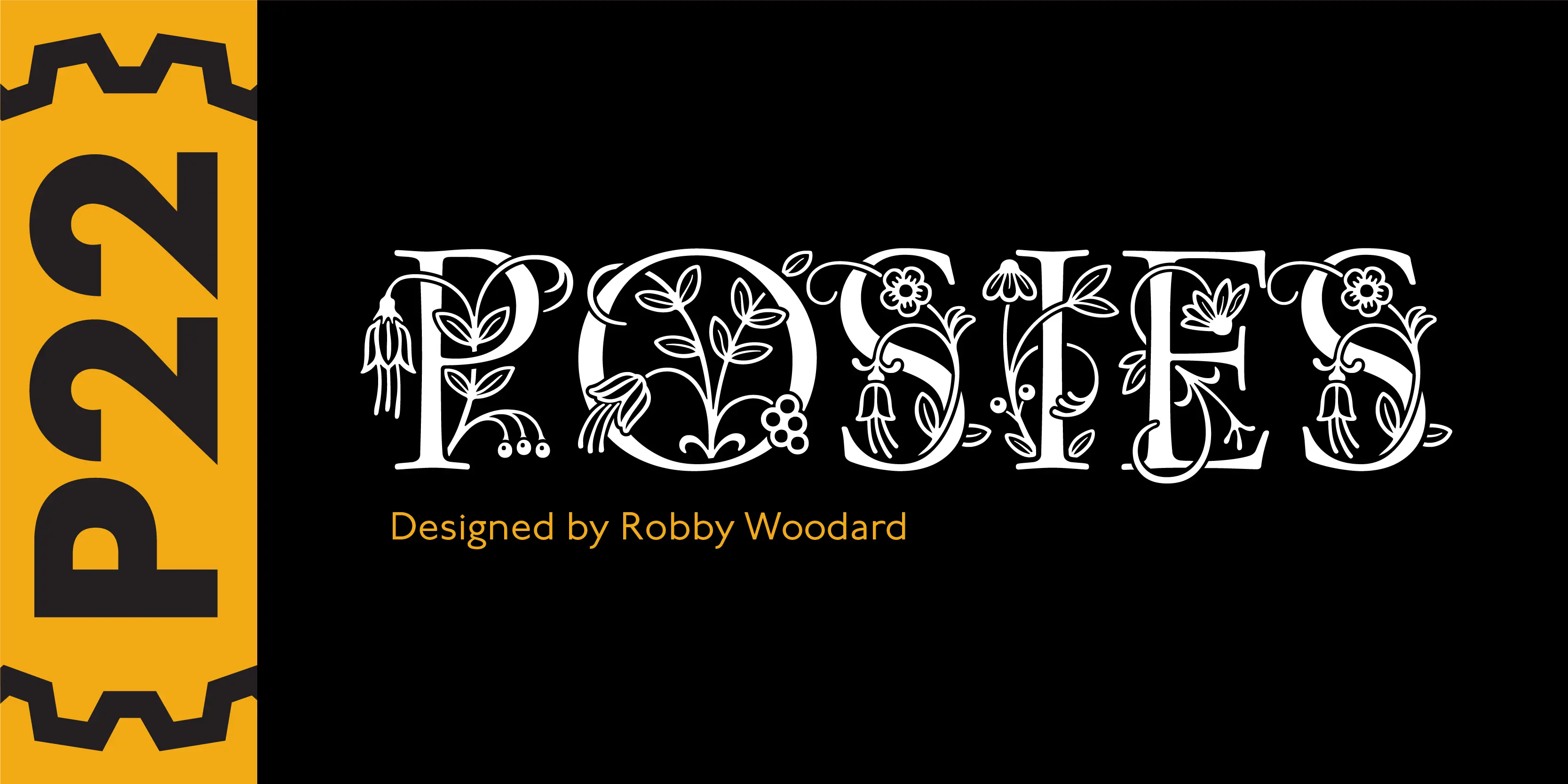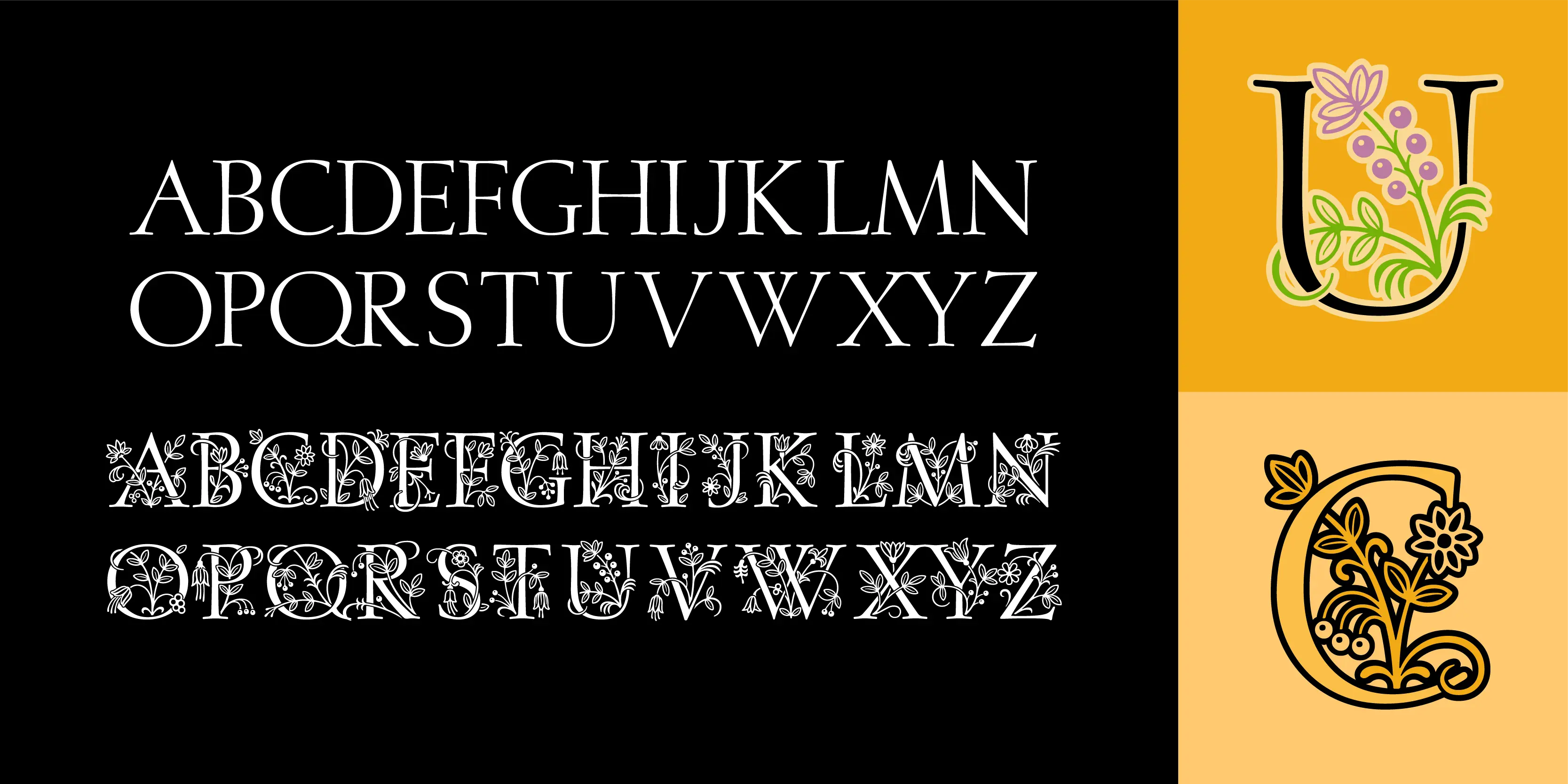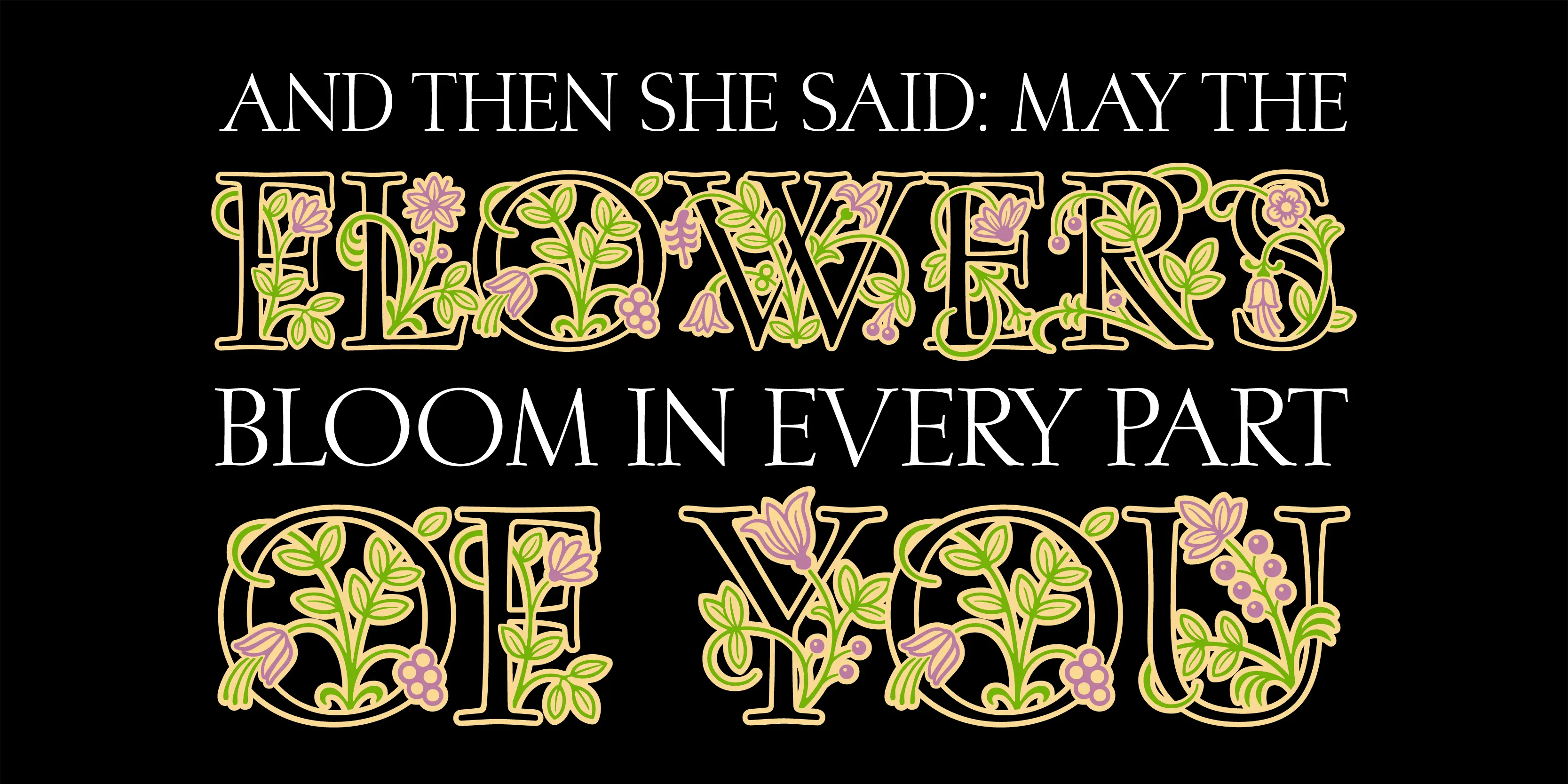
Posies Font Family
Posies
P22 Posies is a six-font system for creating multi-colored initial caps in the spirit of illuminated manuscripts. Four layer fonts can be built upon each other to create any chromatic effect you desire. The Posies Initial font combines all four layers to allow easy one-color drop-caps, while the Solid font features the unadorned roman capitals for setting companion titling text.